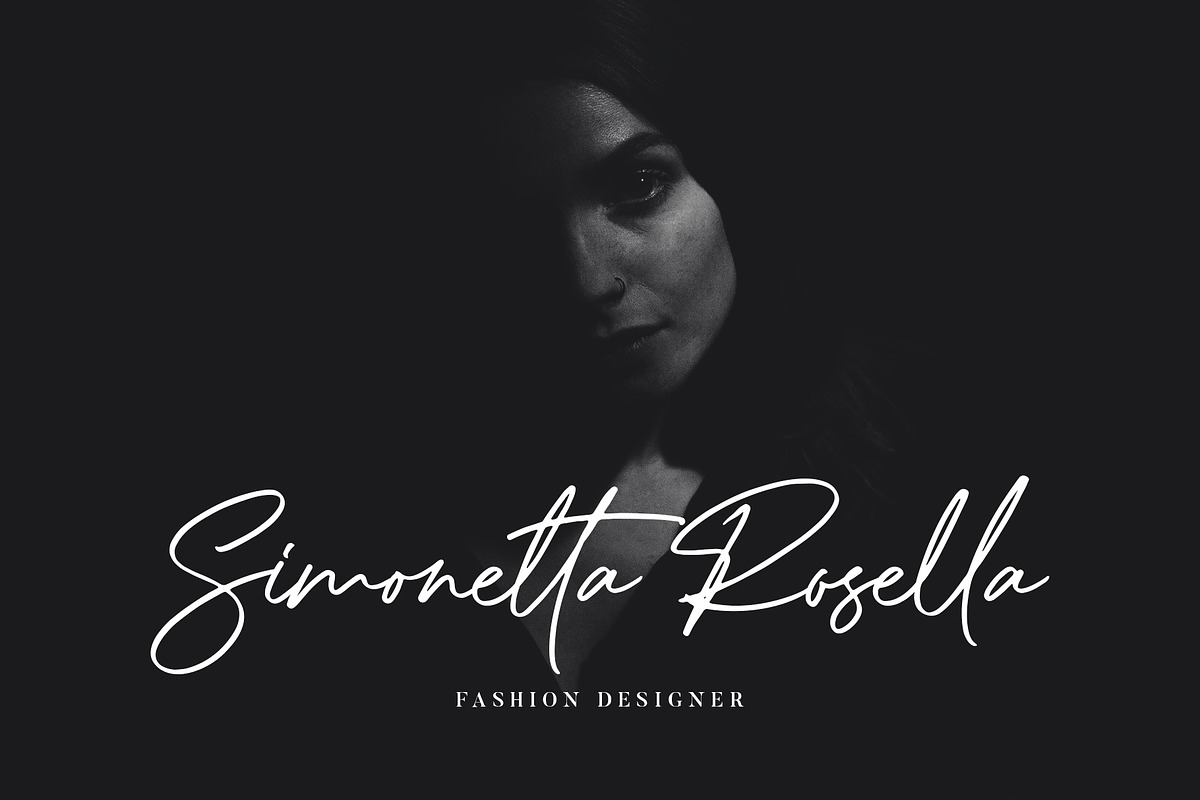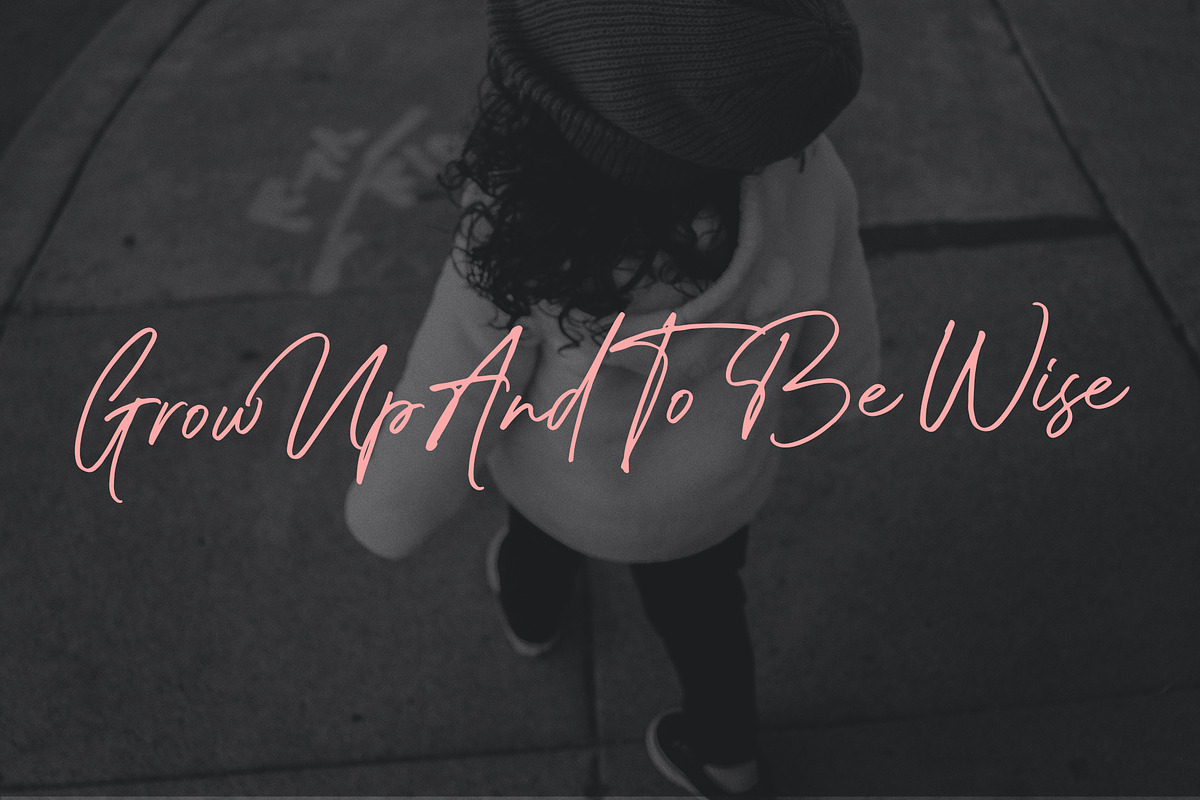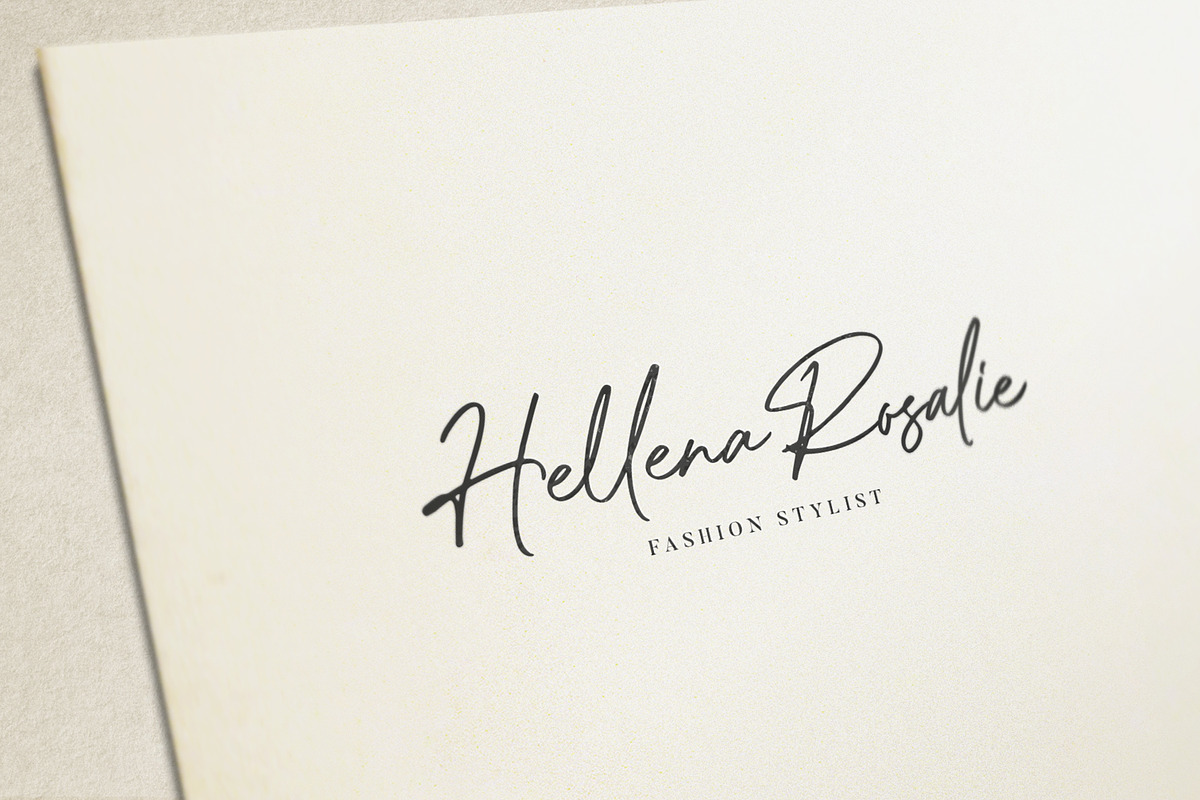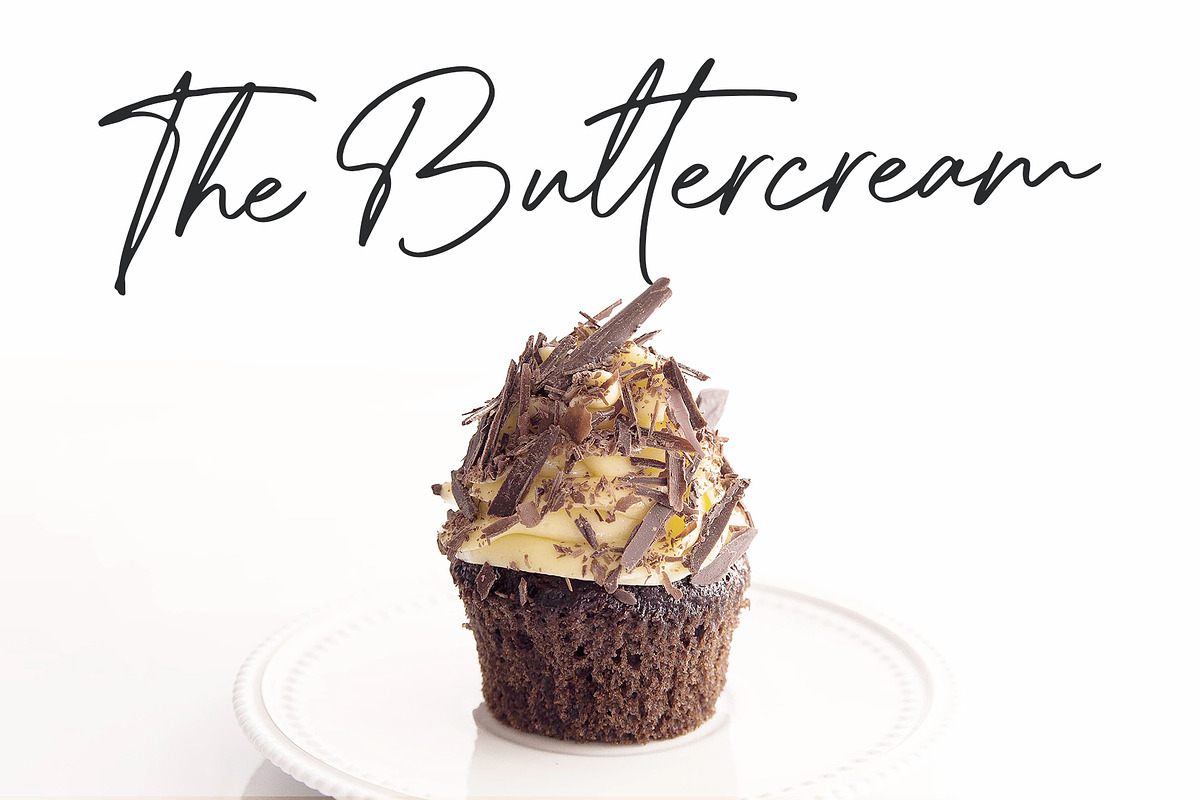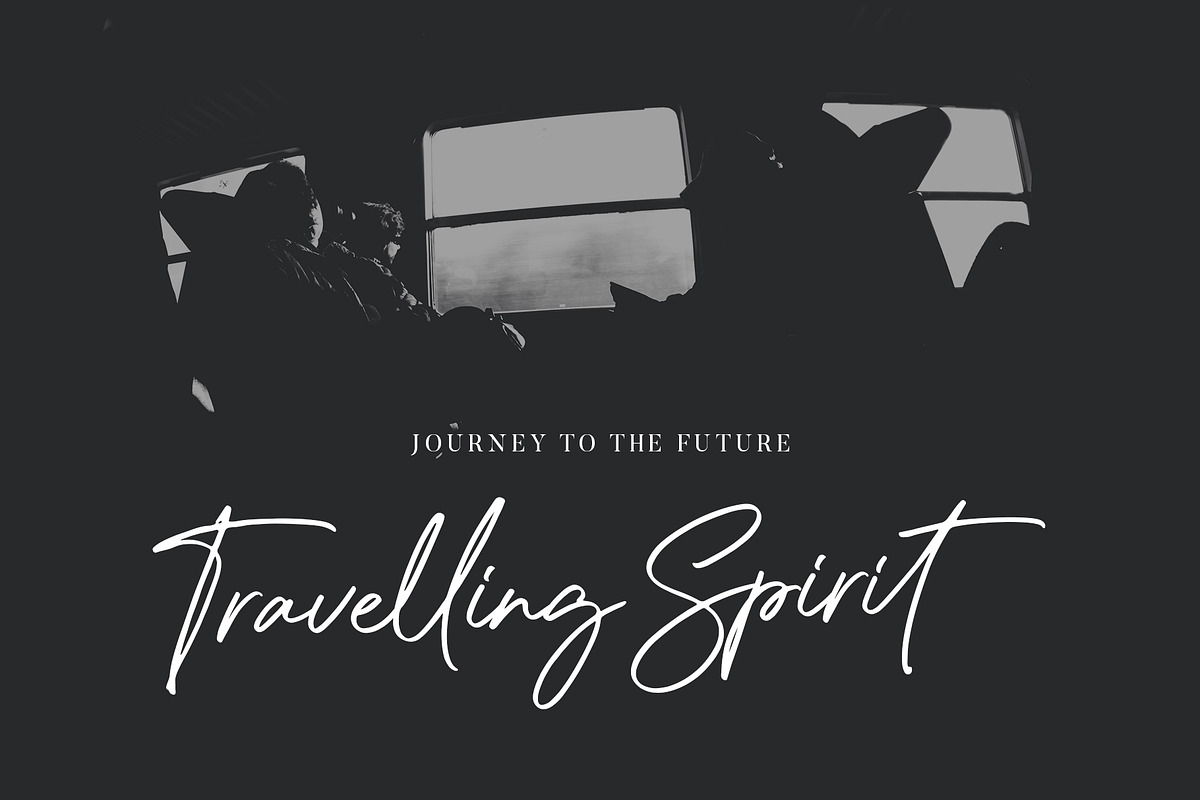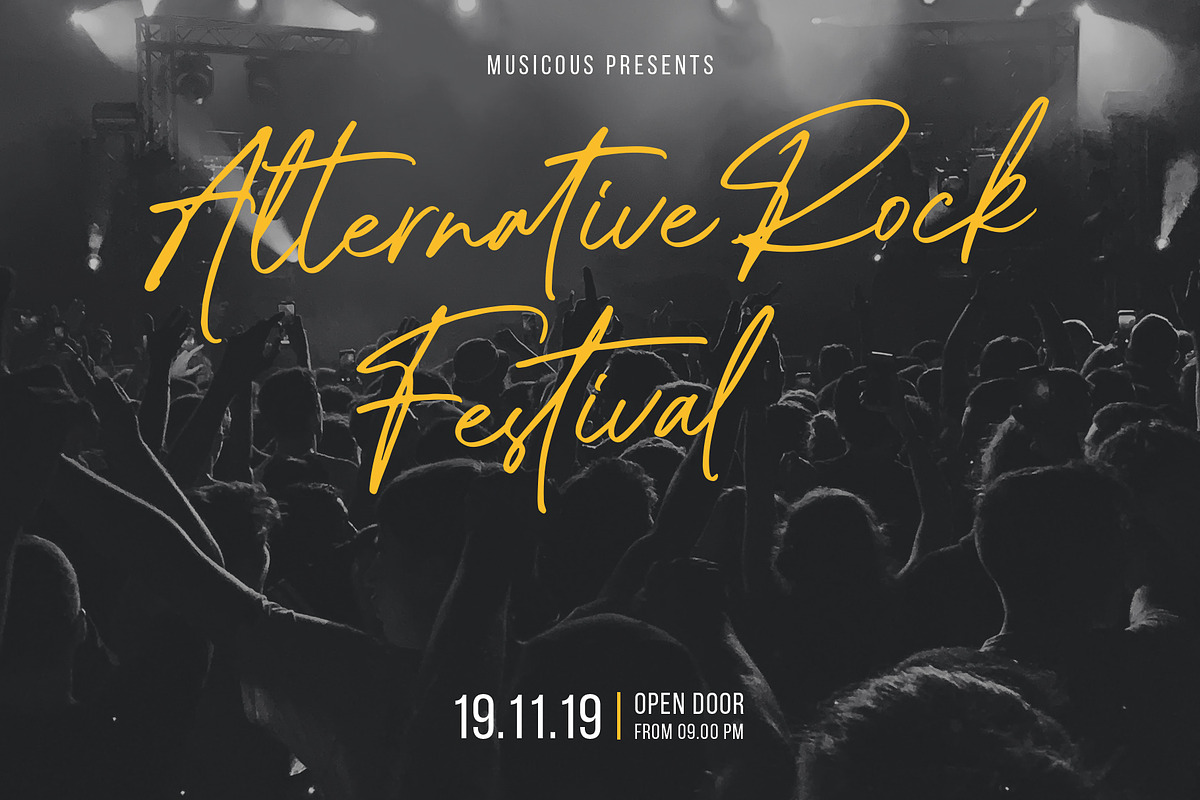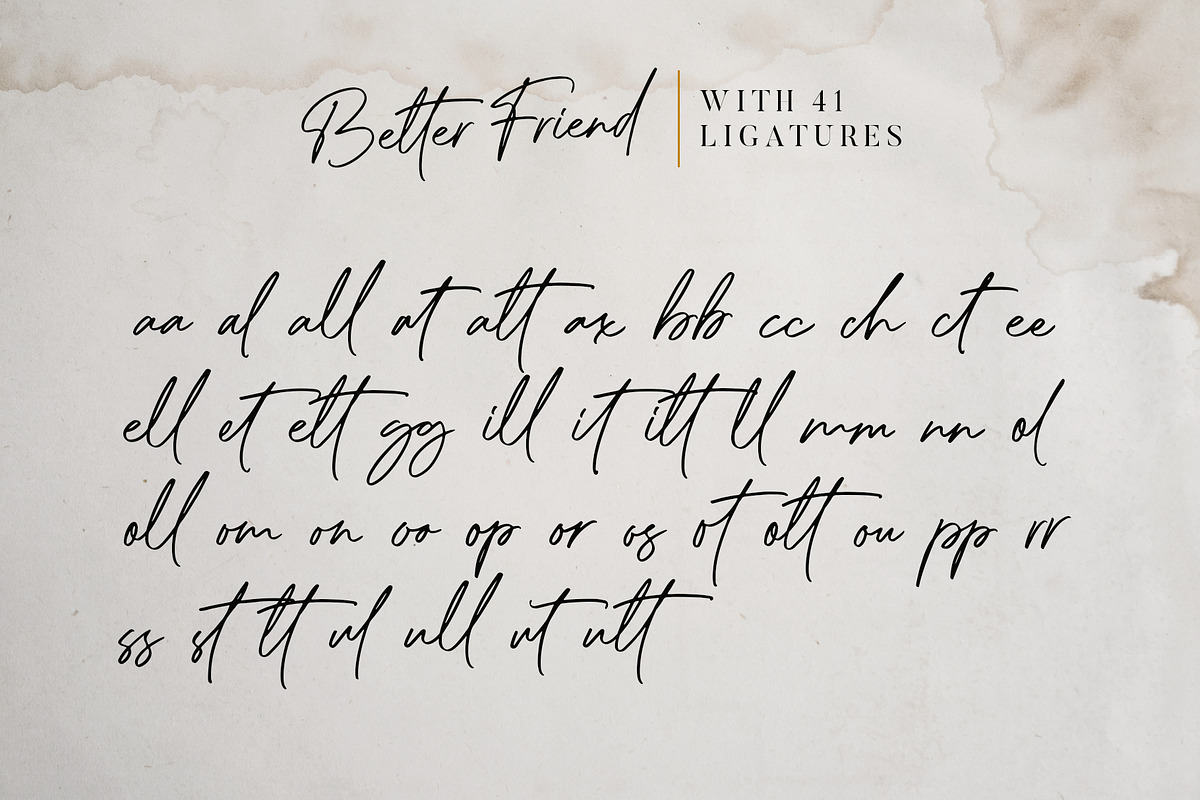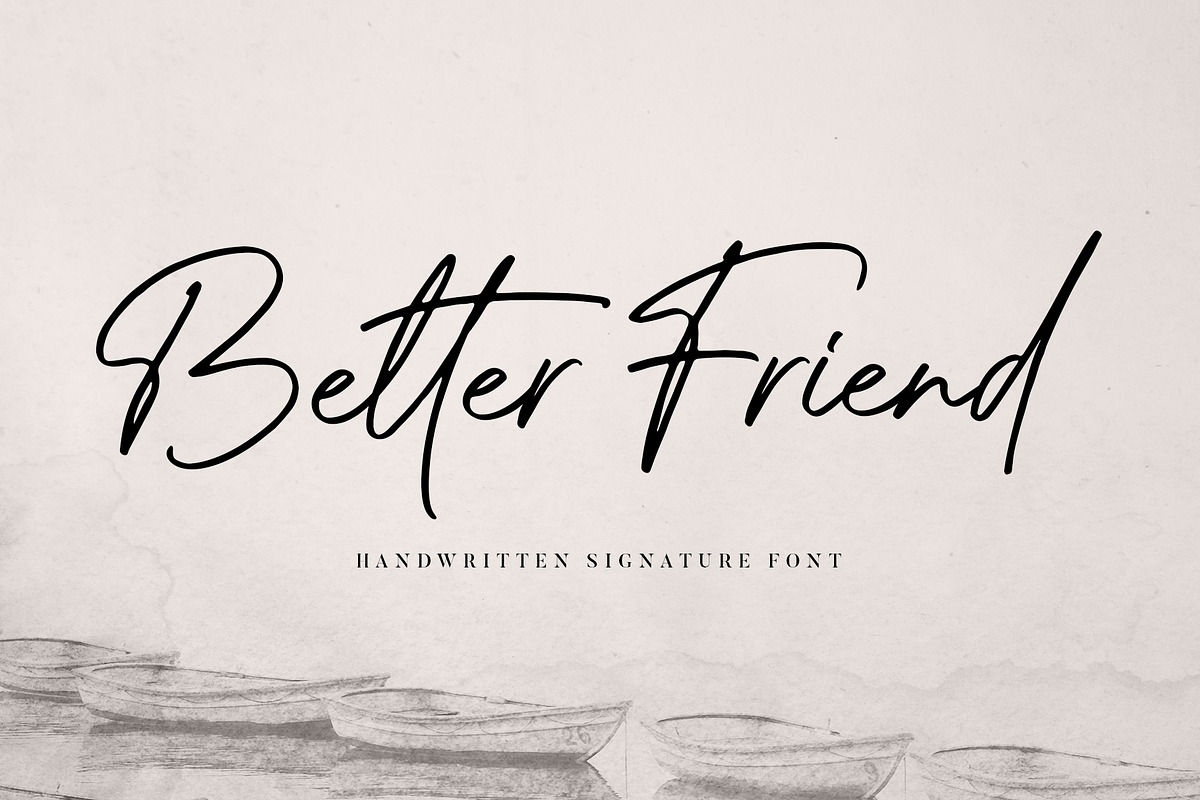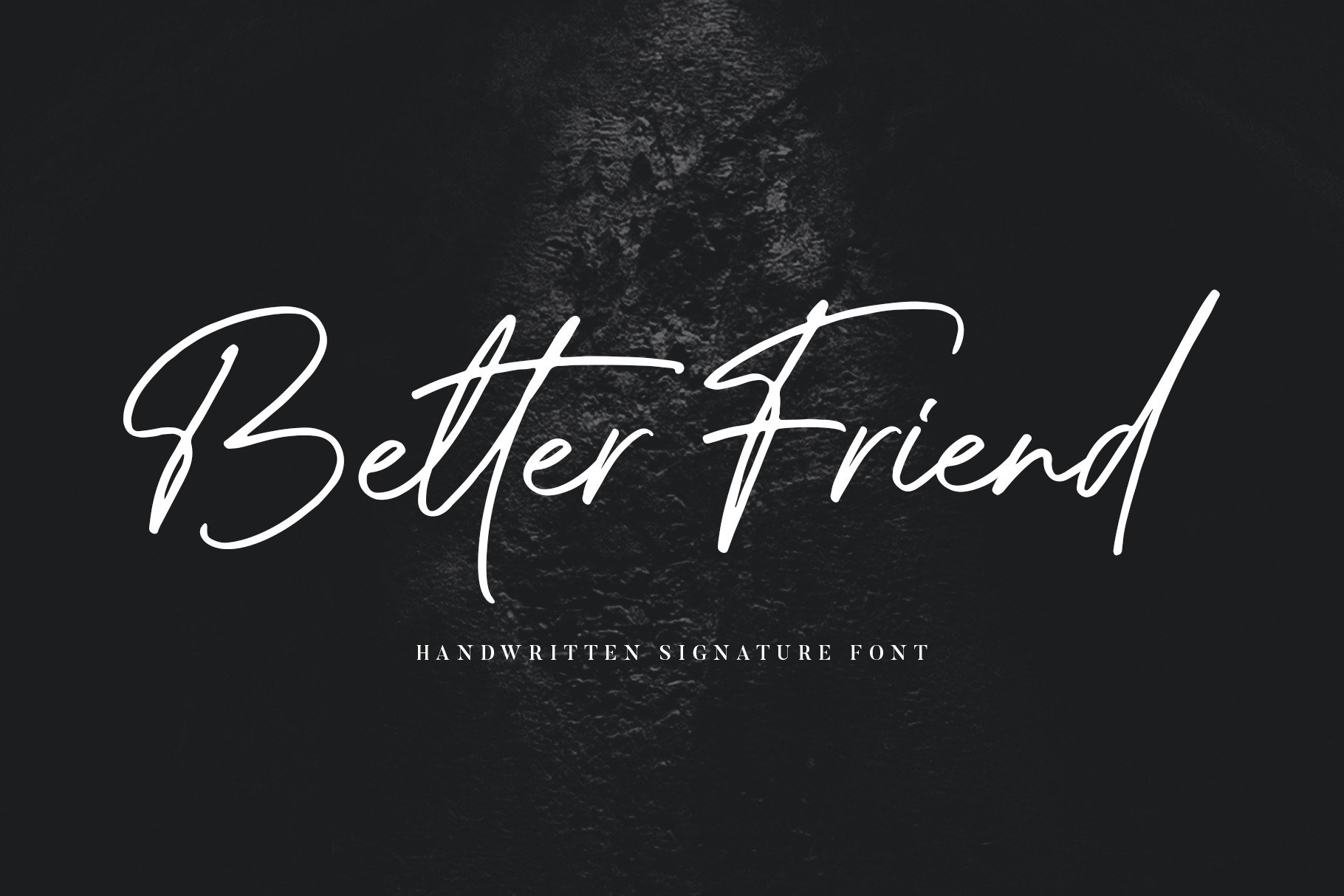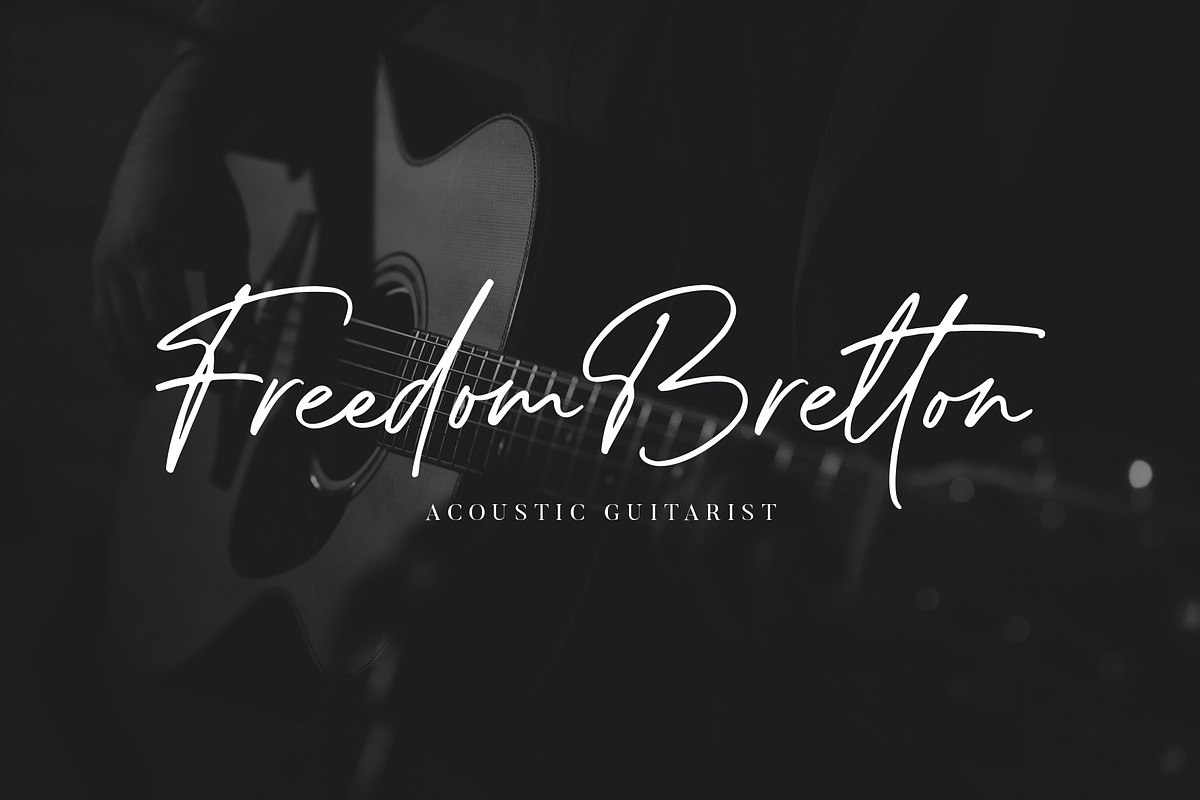
Better Friend Font
Better Friend is an authentic handwritten signature font created using marker with personal touch. Made with marker by hand makes each stroke more natural. This font fits all creative projects and will make each of your projects amazing!
- Number & punctuation symbols
- Stylistic Sets
- International characters (Multilingual)